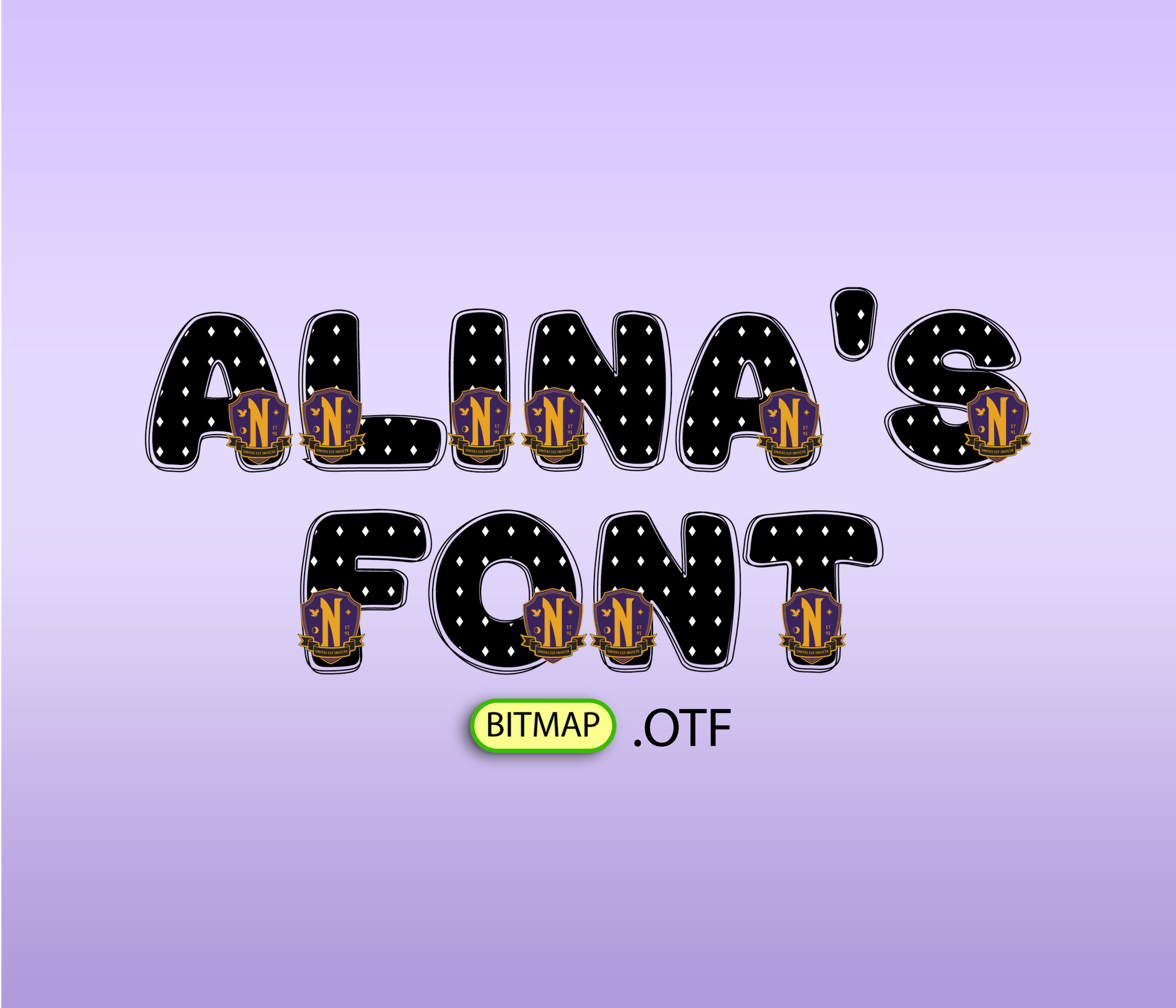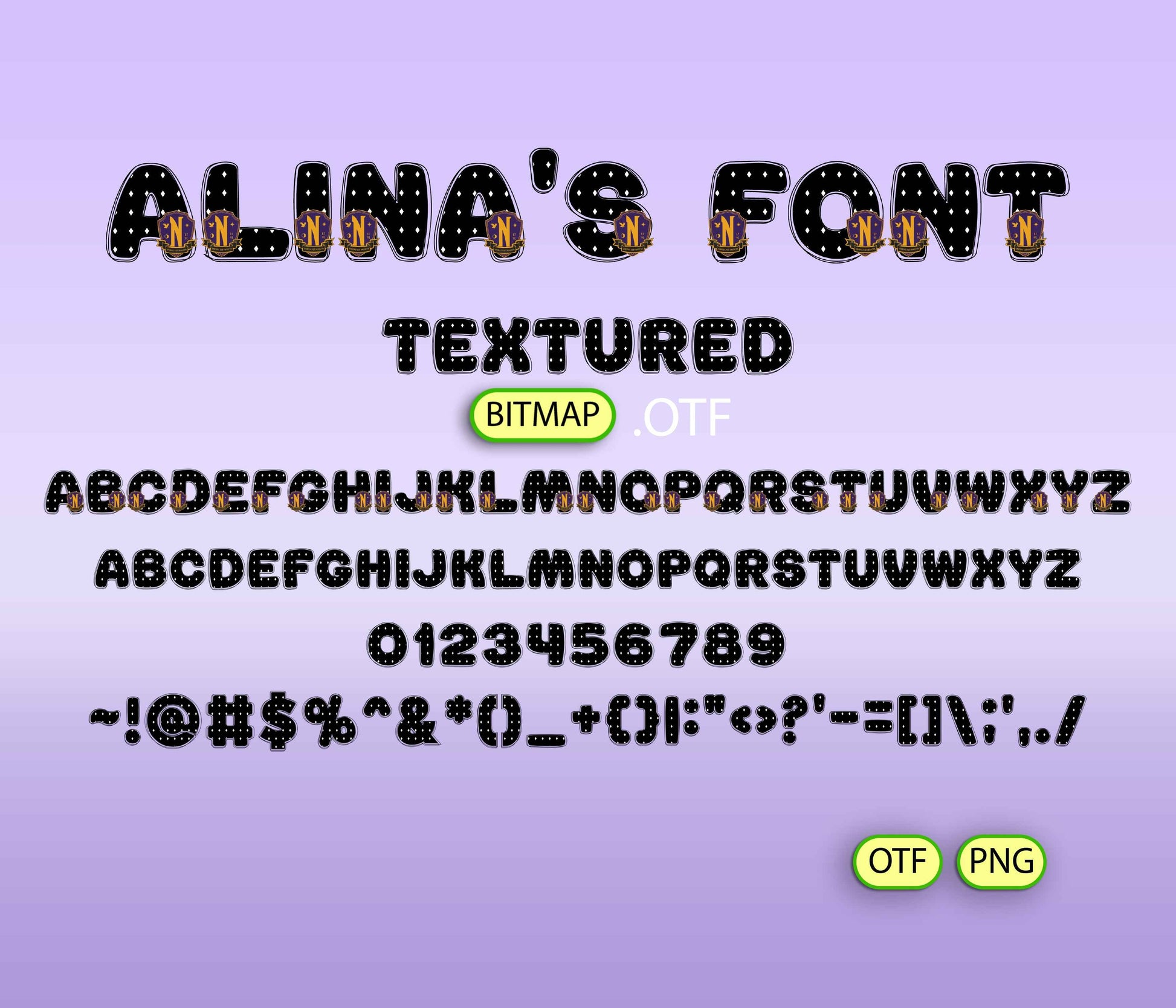
Enigmatic Prodigy Gothic Pattern Font
Enigmatic Prodigy Textured Font: A Gothic Artistry
Introducing Enigmatic Prodigy Textured Font, intricately adorned with elements from a peculiar world of a gothic young heroine. Each character is a blend of gothic charm and creative patterns, reflecting a distinct style associated with a darkly brilliant adolescent. This font invites artisans to explore a realm where the eerie meets the artistic, ideal for crafting unique cake toppers, birthday invitations, or designing bespoke t-shirts.
With its nuanced design echoing the dark elegance of a brooding teenage protagonist, this font is a tool to transform your projects into narratives filled with gothic allure. It captures the essence of a character known for her sharp wit and macabre interests, bringing a touch of that enigmatic spirit to your creative endeavors.
Whether you're designing for a themed party, creating merchandise inspired by gothic tales, or simply want to add a touch of mysterious charm to your projects, the Enigmatic Prodigy font offers a perfect blend of sophistication and eeriness. Its textured elements add depth and character, making each letter a work of art in itself.
This font is perfect for those who appreciate the darker side of creativity, offering a unique way to express ideas that are both haunting and beautiful. Let your imagination dance with the shadows as you craft designs that are as intriguing and complex as the character that inspired this font.